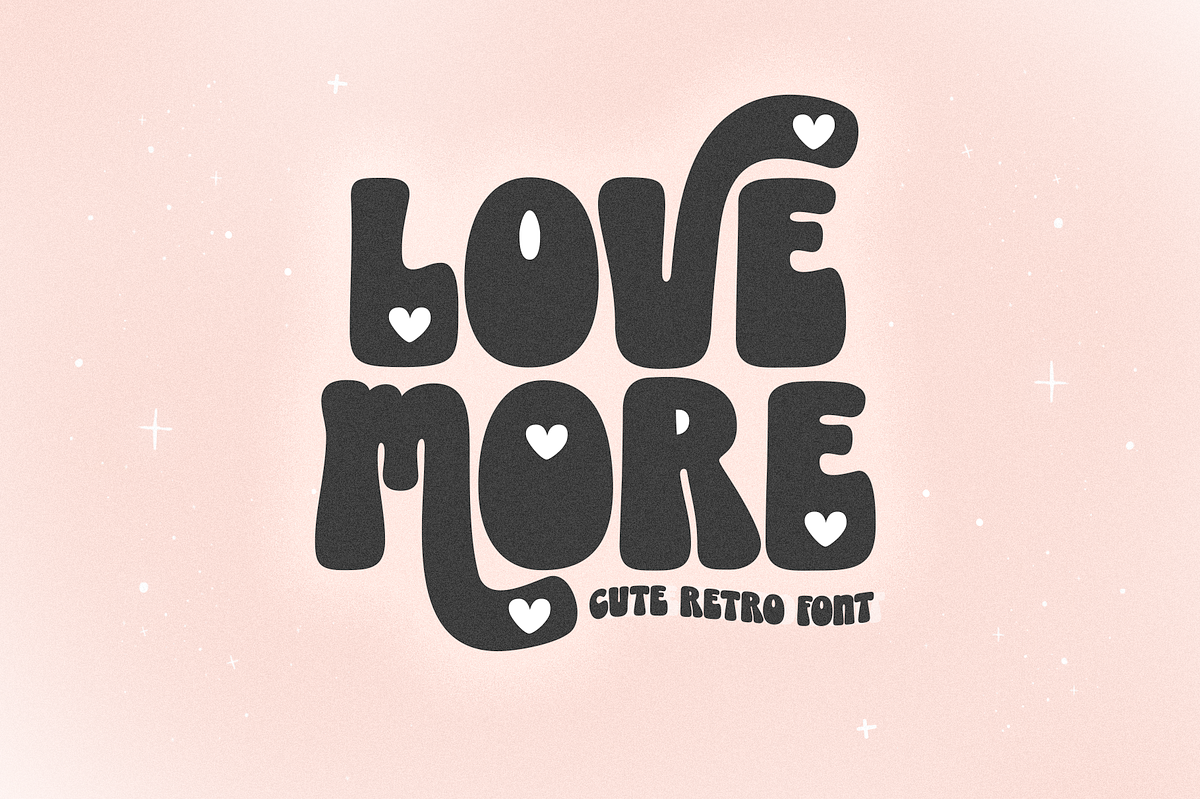
Groovy, bold, and bursting with nostalgic charm, Love More | Retro Font Free Download is a vibrant typeface inspired by the playful spirit of the ‘60s and ‘70s. Ideal for posters, t-shirts, social media graphics, stickers, and branding projects that crave a touch of retro flair, this font delivers joyful curves and eye-catching style.
With its bubbly letterforms and vintage attitude, Love More brings instant personality to any design. Whether you're crafting a retro-themed event poster or designing a quirky product label, this font sets the perfect tone with a fun, free-spirited vibe.